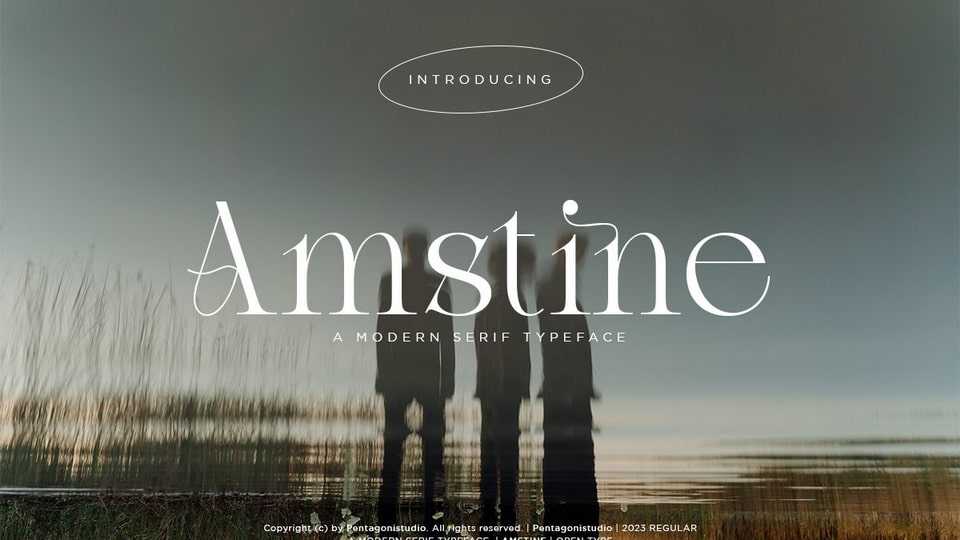
Download Amstine font, a sophisticated and graceful serif typeface that exudes class and refinement. With its slender and delicately curved serifs, Amstine adds an air of understated elegance to any design.
Designer: Pentagonistudio